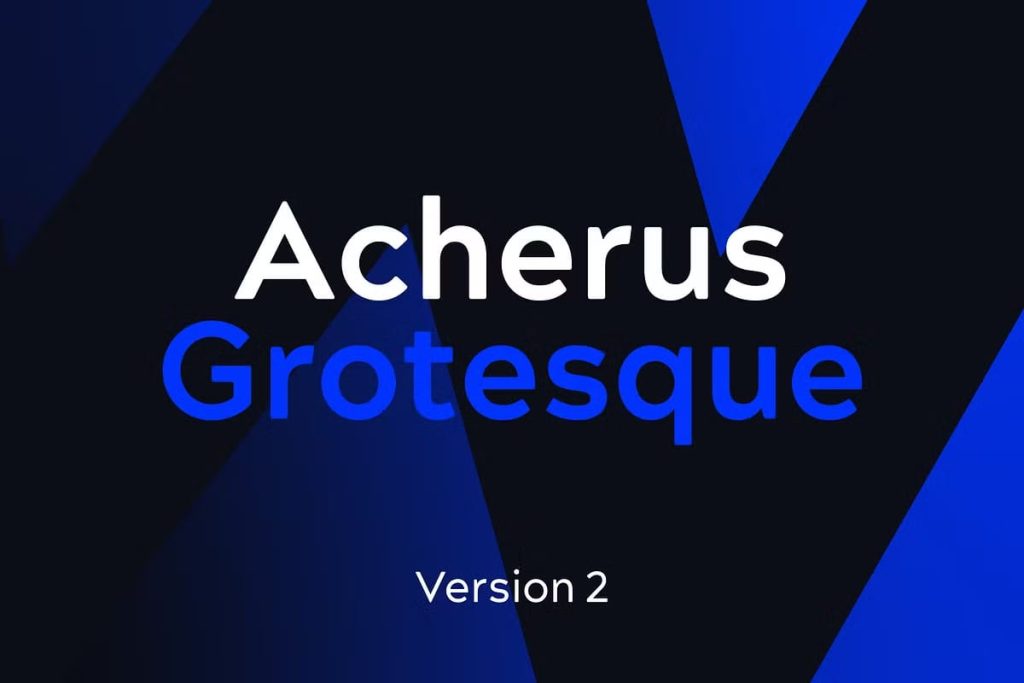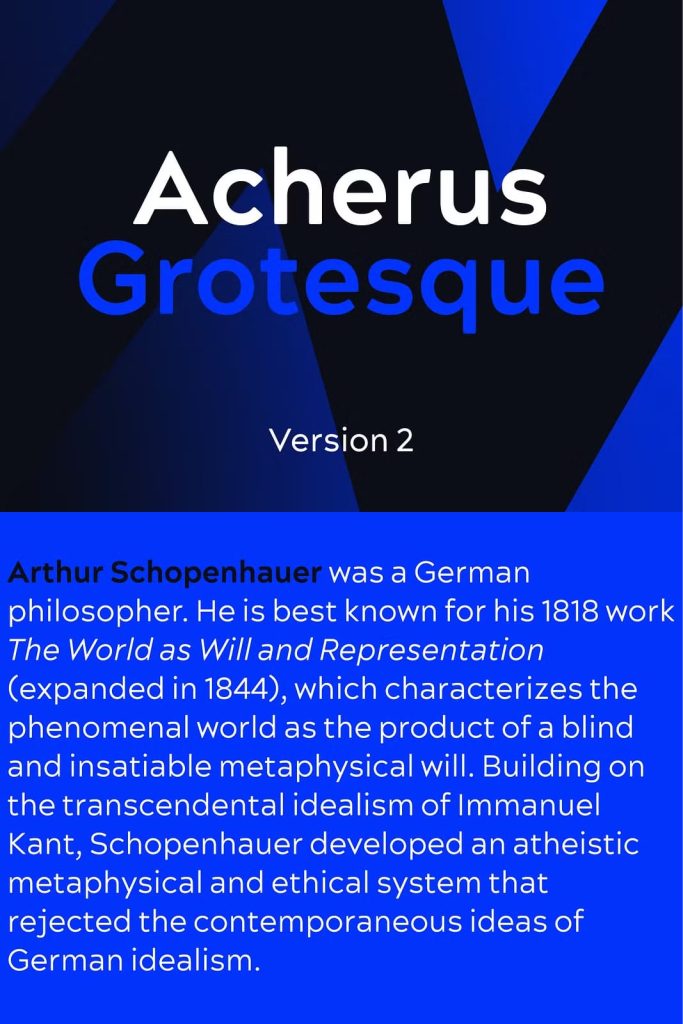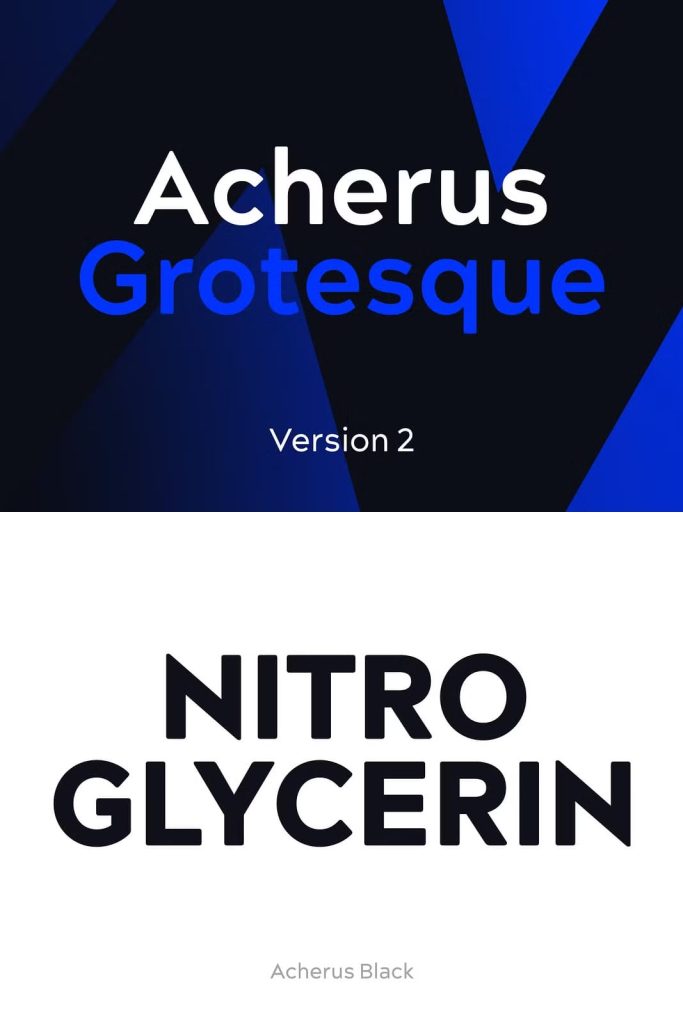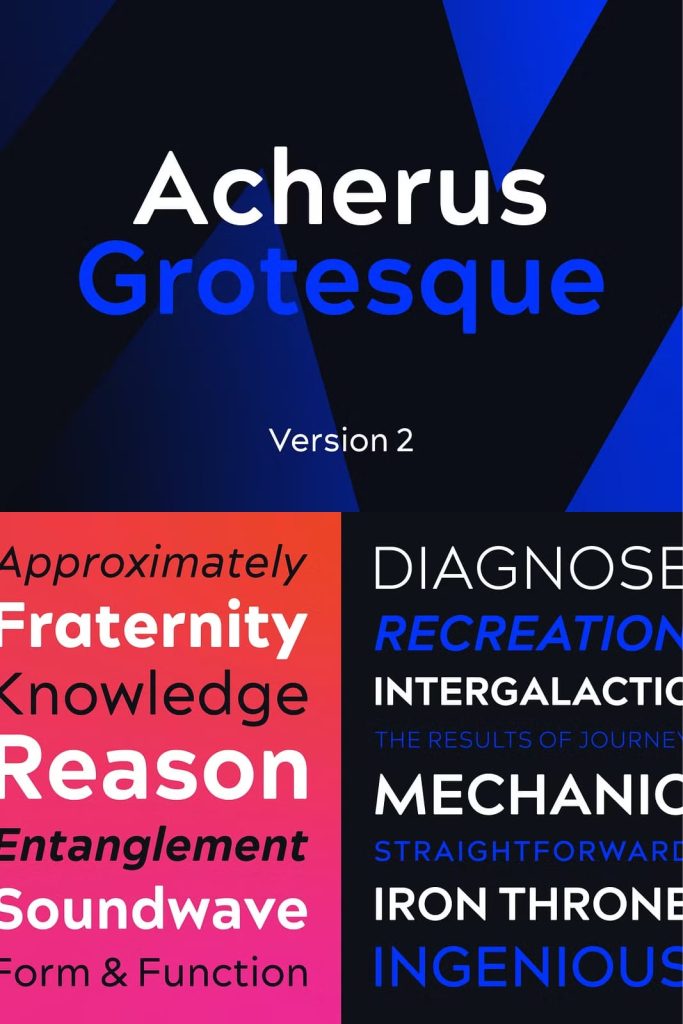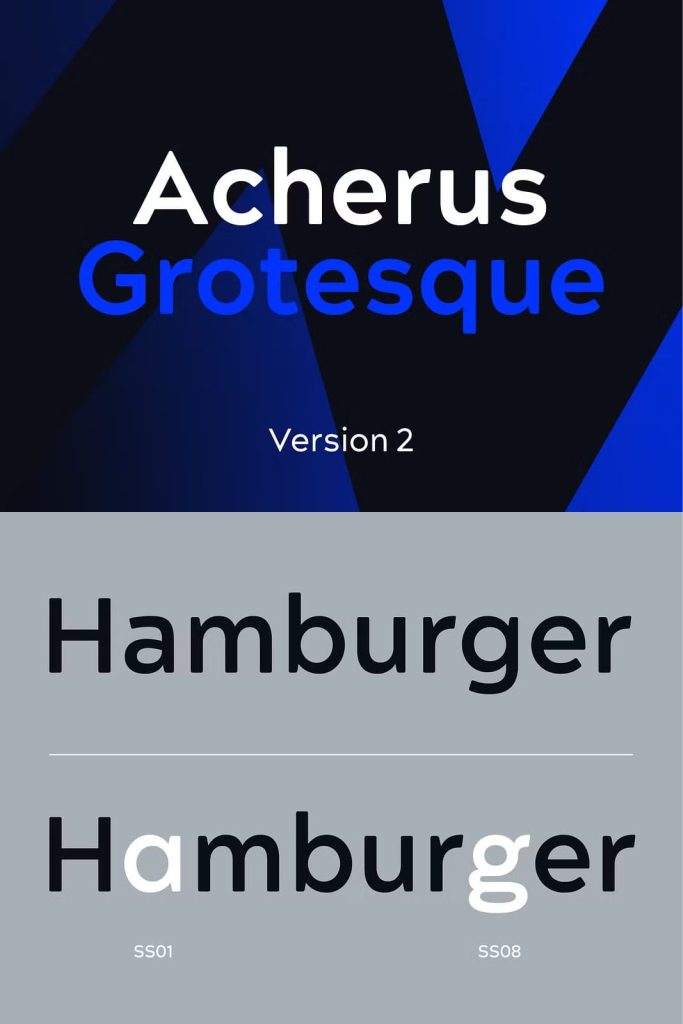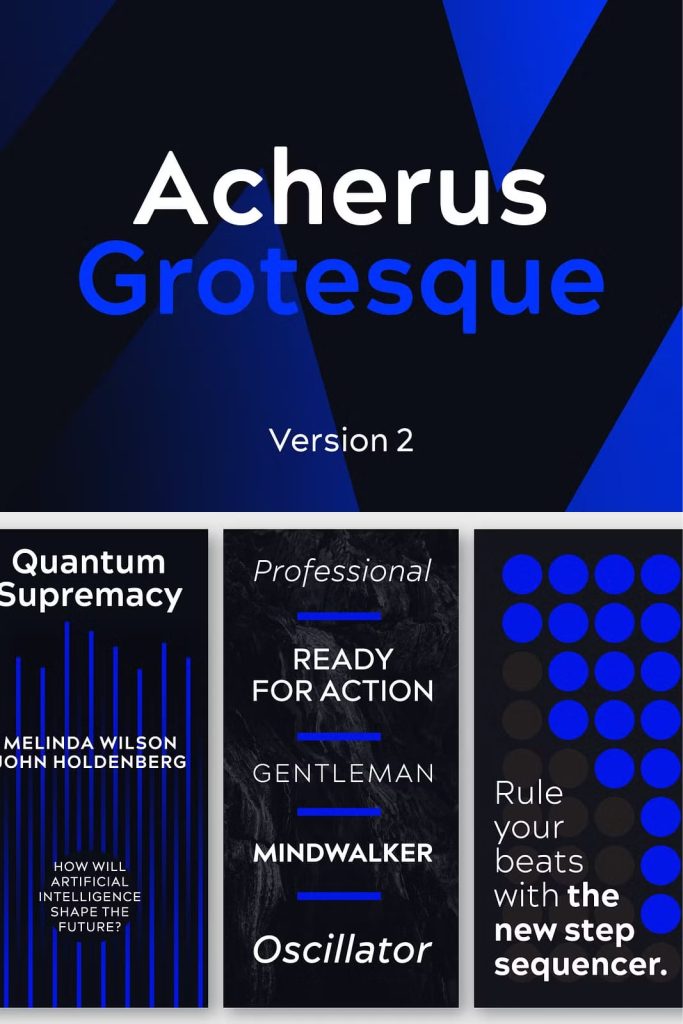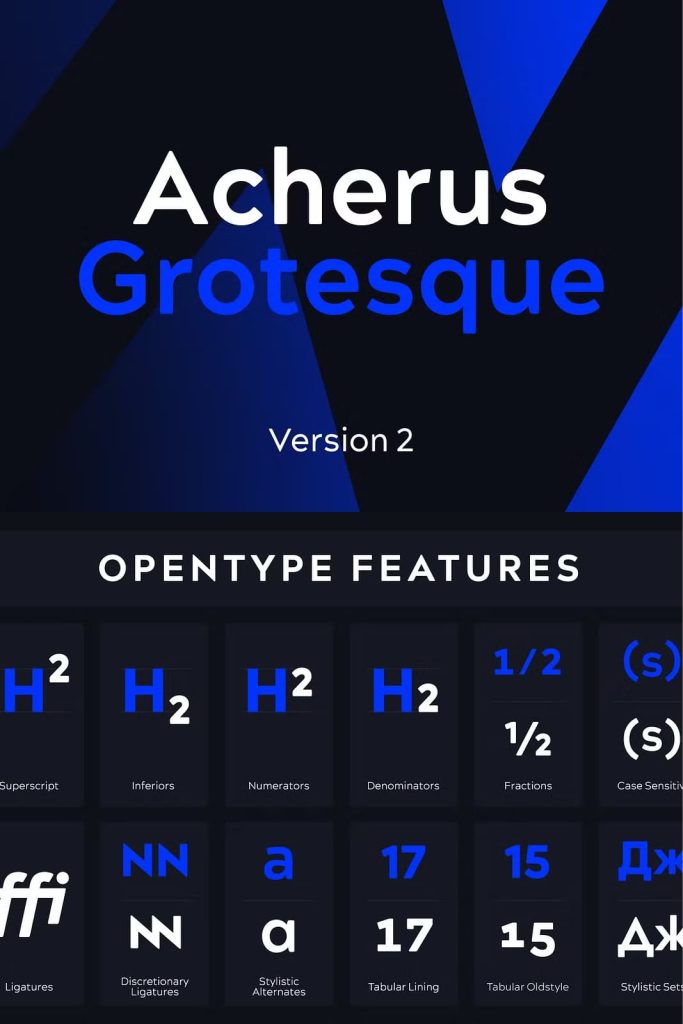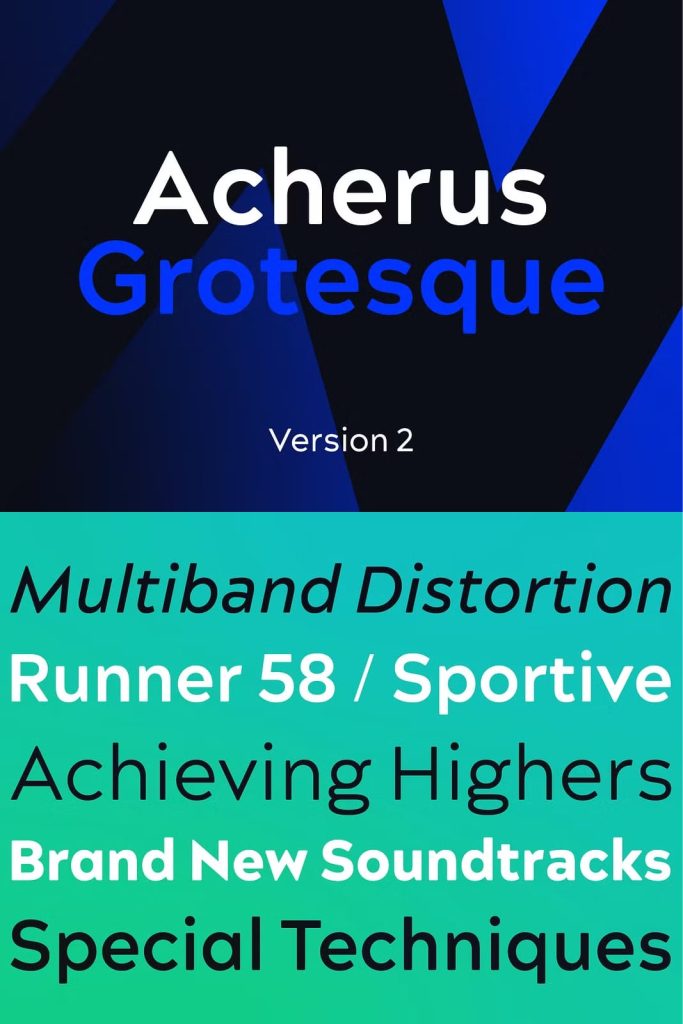
Acherus Grotesque is a rounded sans serif type family based on geometric forms. It comes in 20 styles: 10 uprights and matching italics. In this version greek and cyrillic scripts added plus all glyphs renewed.
Each weight includes extended language support, ligatures and more. Acherus is incredibly useful for nearly any creative design.